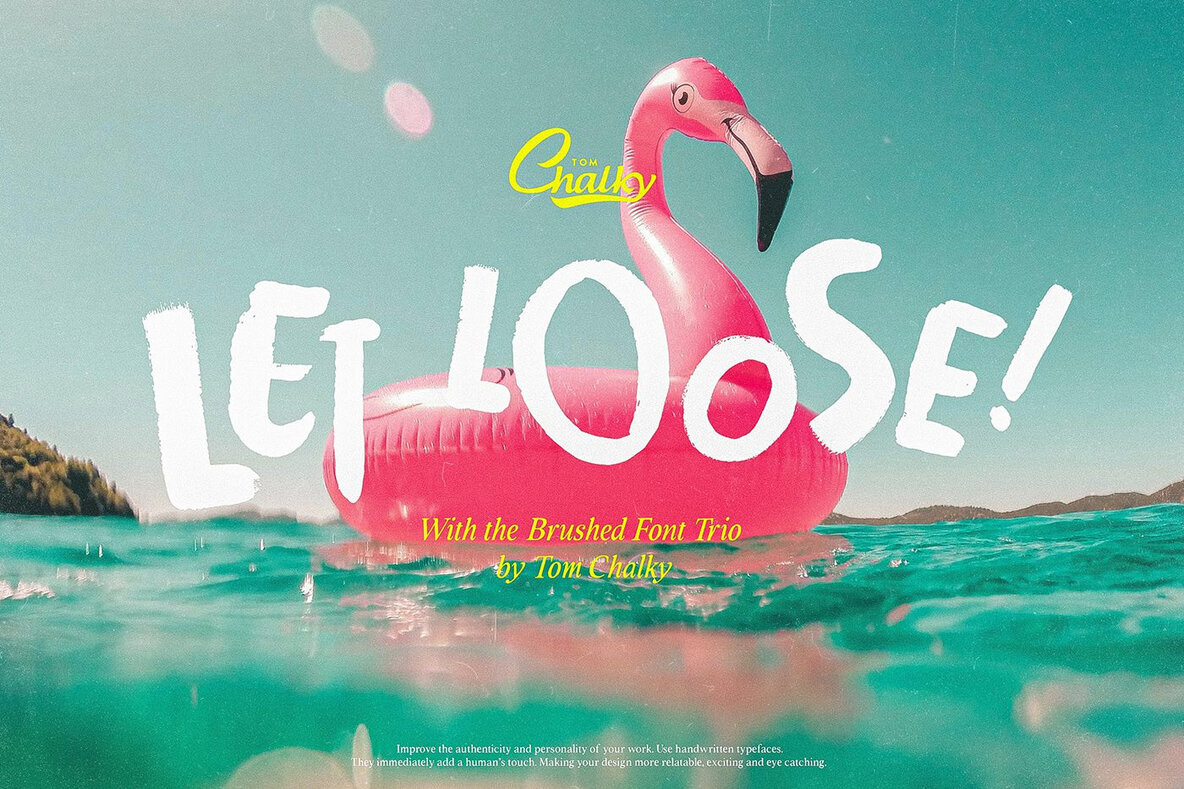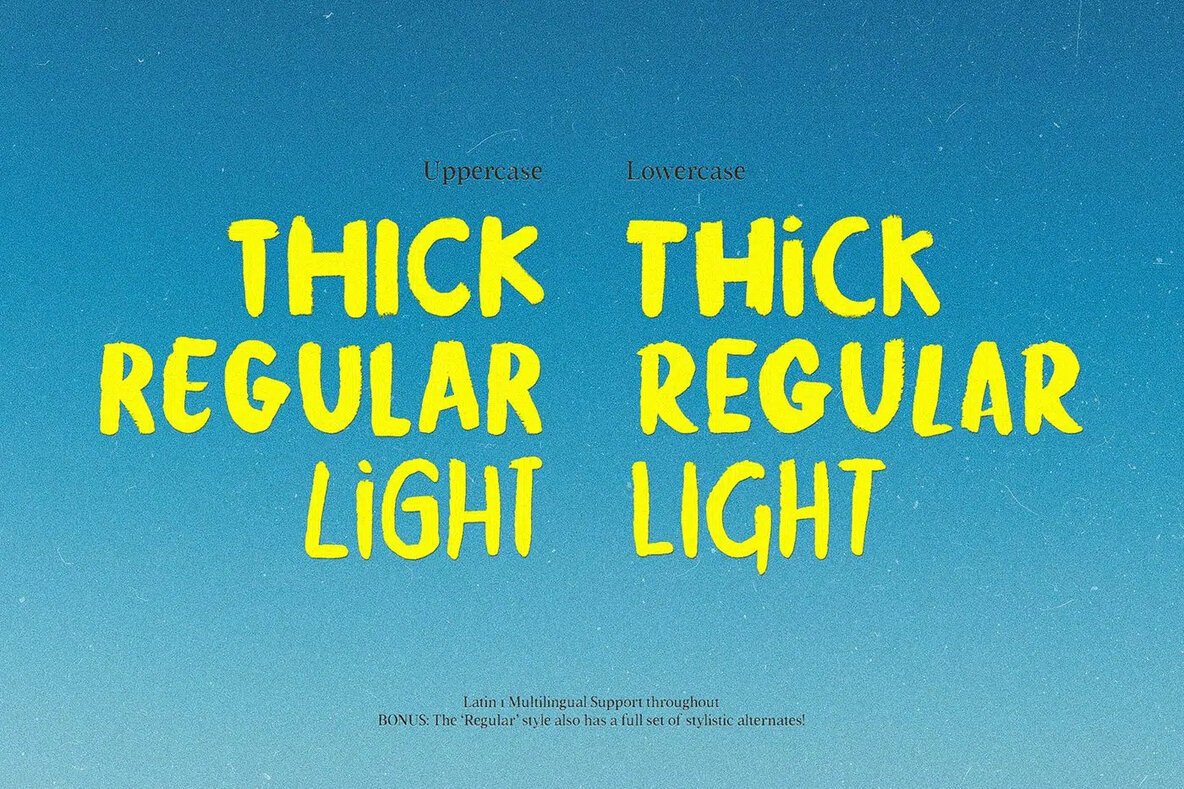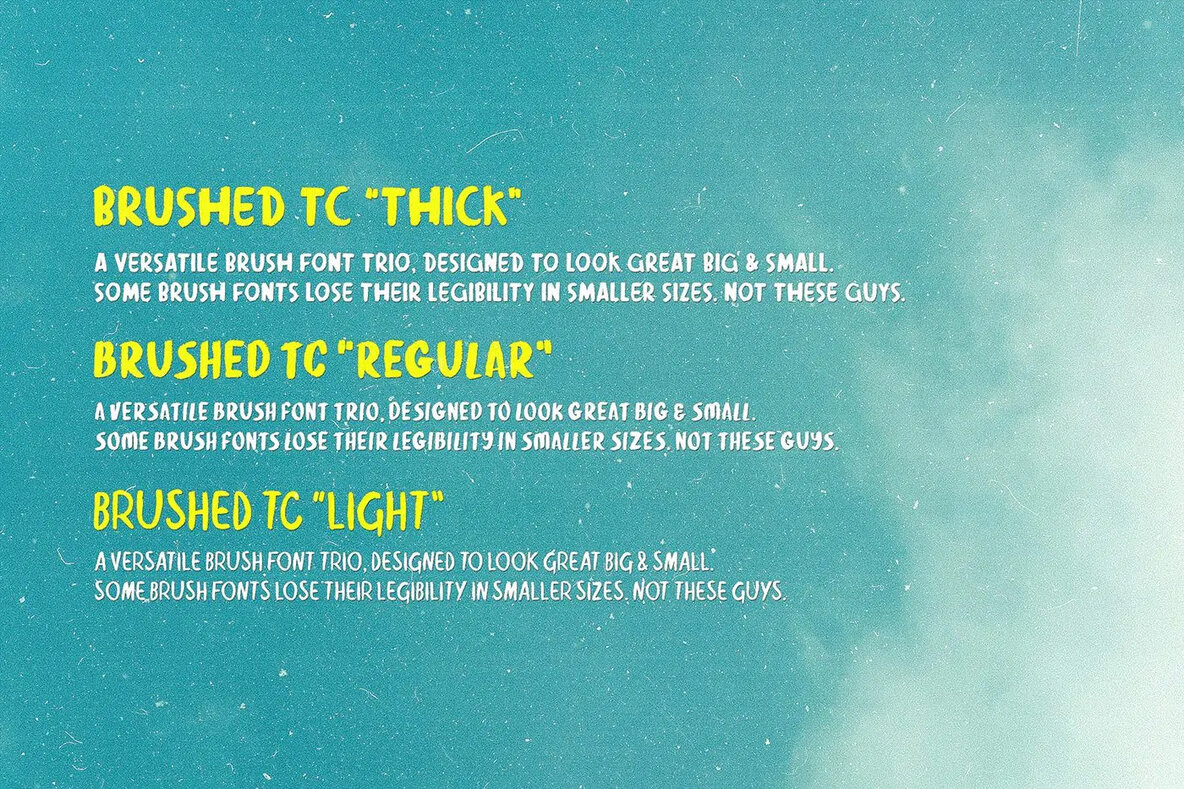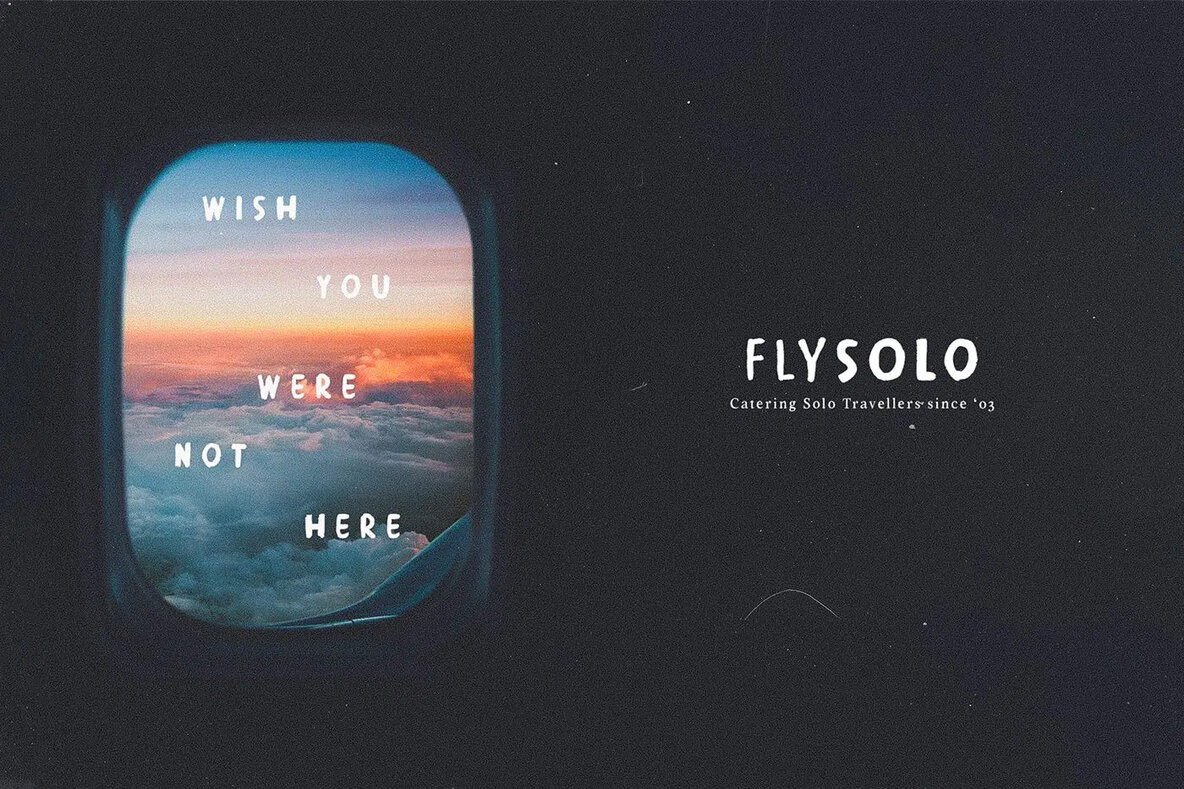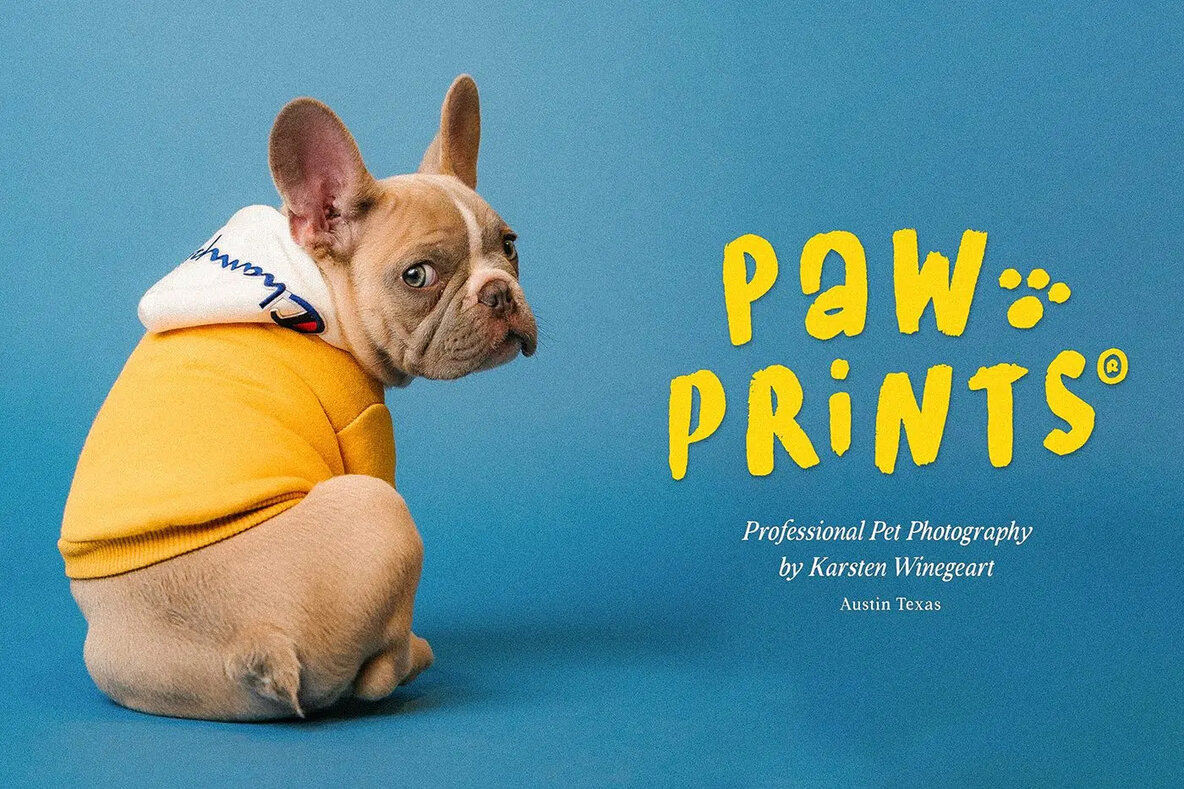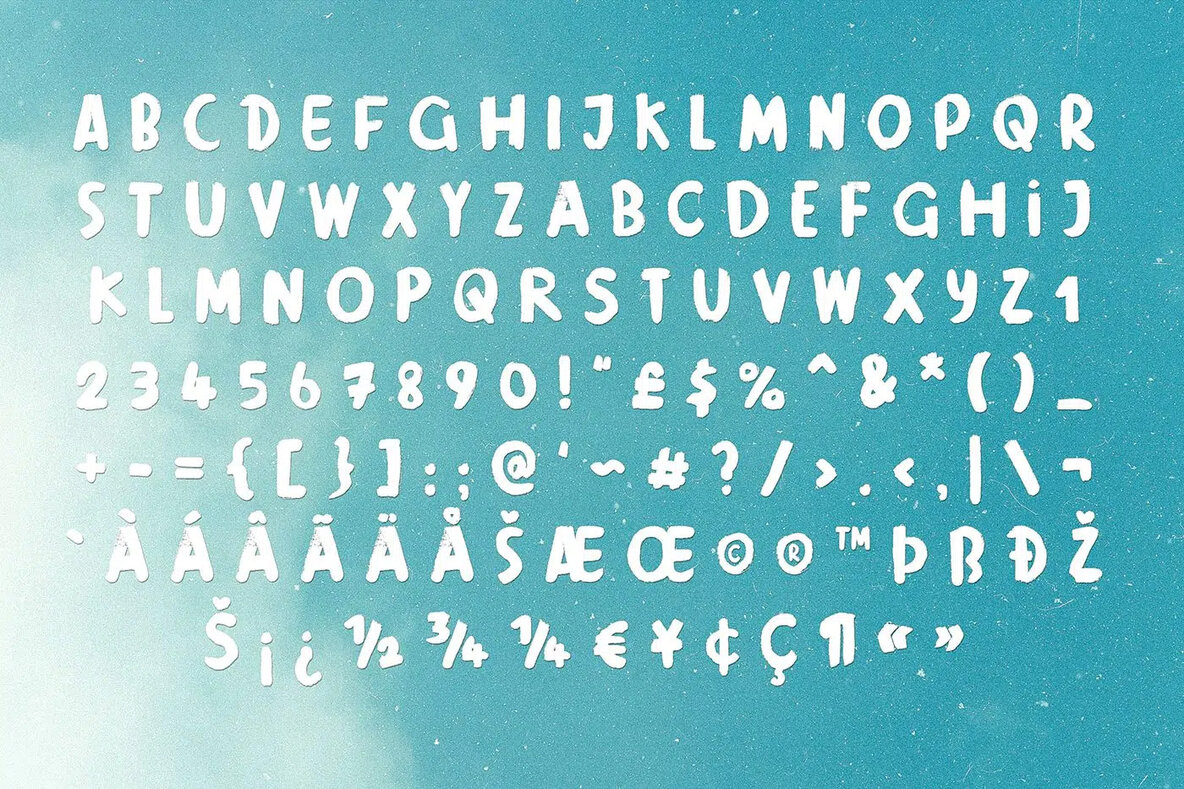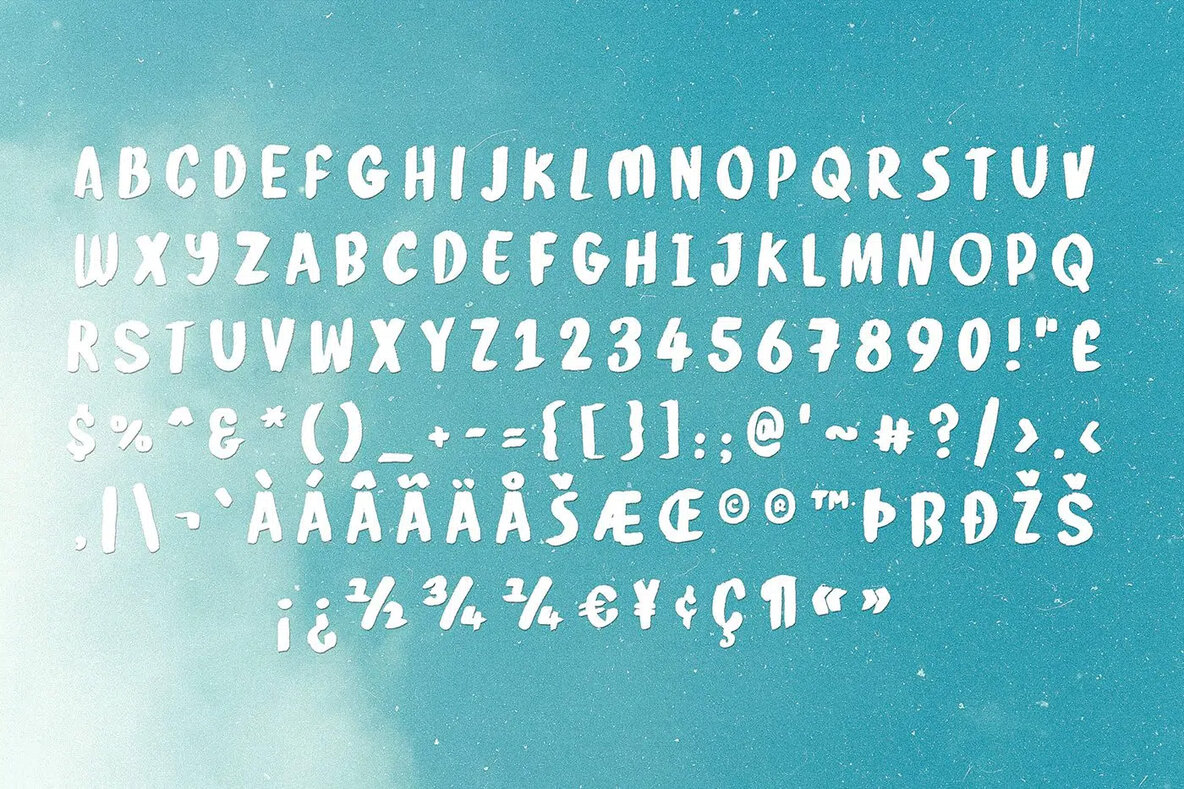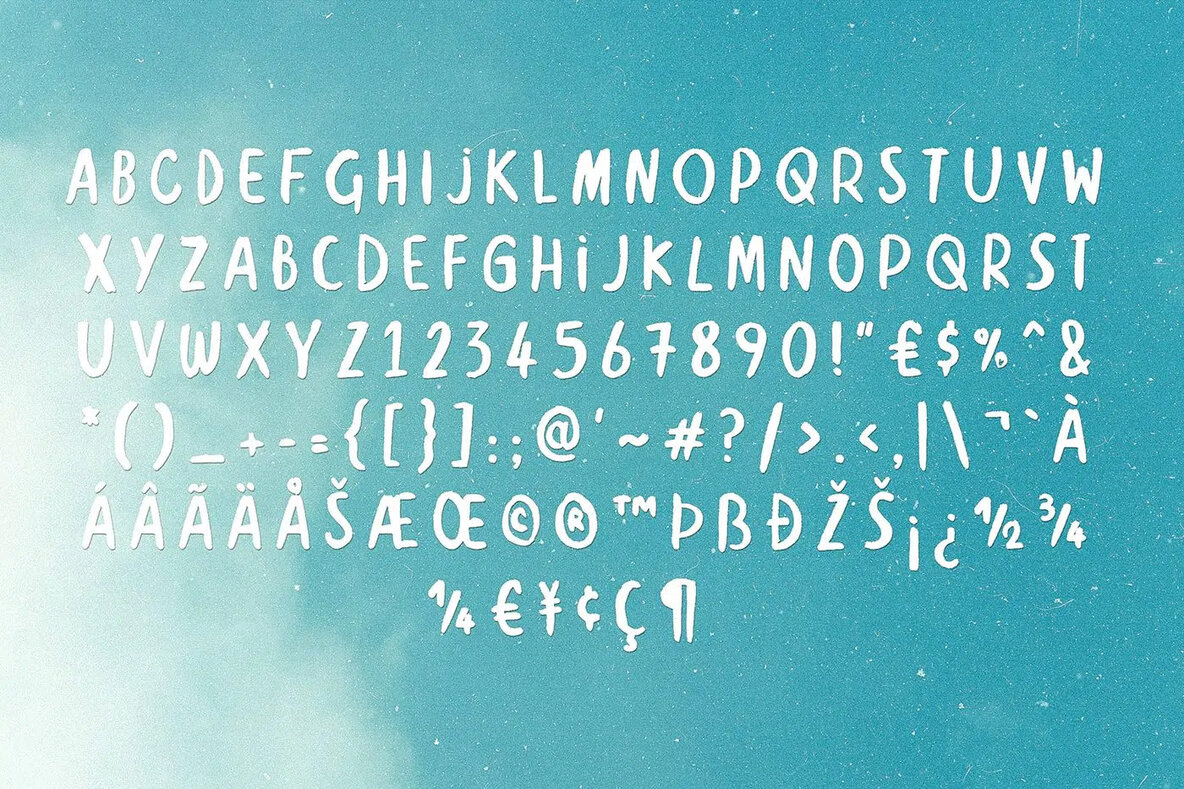
TC Brushed Font
Introducing the Brushed TC Font Trio – a hand-painted typeface family that brings bold character and artistic flair to your designs. Each style in this trio (Thick, Regular, and Light) is crafted to stand out while remaining legible at any size. With multilingual support and a full set of stylistic alternates for the Regular style, Brushed TC is versatile enough for branding, packaging, posters, social media, and more. Simple yet impactful, this brush trio is designed to be your go-to for adding personality and energy to any project.